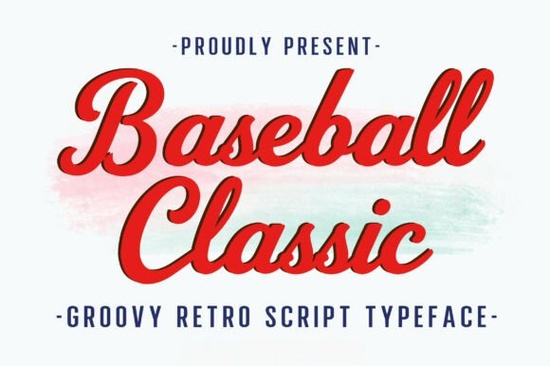
If you're looking for a bold, retro script with a clear sporty attitude, Baseball Classic Font is a strong choice. This vintage-style typeface carries the energy of old ballpark signage and classic team uniforms, making it a natural fit for logos, t-shirts, and any project that needs a nostalgic punch. It includes uppercase and lowercase letters, numbers, and punctuation, so you can use it for everything from a full brand identity to a short quote on a poster.
What makes Baseball Classic Font different from other script fonts?
Many script fonts aim for elegance or modern handwriting styles, but Baseball Classic leans into a rough, confident, and slightly weathered look. The strokes are thick and consistent, giving it high legibility even at smaller sizes. The vintage sporty feel isn't just about the name the letterforms have a hand-drawn character that recalls screen-printed numbers and lettering on leather baseballs. This makes it particularly useful for projects that need an authentic, old-school American aesthetic.
For designers working on sports merchandise or retro branding, this font can anchor a design without extra effects. It works well as a display font for headlines, but it's also readable enough for short body text when you want a cohesive vintage theme.
Who should use this font?
If you run a small print-on-demand shop selling custom apparel, or if you design logos for local sports teams, cafes, or barbershops, Baseball Classic Font should be on your list. It's also great for creative hobbyists who make posters for charity events, tournaments, or themed parties. The included punctuation and numbers mean you can create complete phrases and dates without switching to another typeface.
For crafters who make custom merchandise like mugs, hats, or tote bags, this font's bold weight ensures it stands out on fabric and curved surfaces. Small business owners who want a consistent vintage brand voice across packaging, flyers, and social media graphics will find it easy to work with.
How can you pair Baseball Classic Font with other styles?
Because it's a bold script, it pairs naturally with clean sans-serif fonts for a modern vintage contrast. For a more cohesive retro look, try combining it with a rough serif or a distressed slab. If you prefer a more elegant handwritten feel, you might look at a font like Stylish Handwriting Font for secondary text like taglines or product descriptions. For a handmade, textured vibe, a font such as Handmade Font can add an organic layer to your projects.
Where does Baseball Classic Font work best?
Logos for baseball teams, vintage-inspired apparel brands, and retro diner or bar signage are the most obvious uses. But don't limit yourself this font also shines on:
- Posters for baseball tournaments, charity games, or sports camps
- T-shirt designs with player names and numbers
- Quote graphics for social media (especially motivational or nostalgic quotes)
- Merchandise like hats, hoodies, and drinkware
- Branding for old-fashioned soda, candy, or snack labels
Practical tips for using this font in your designs
- Test readability at small sizes. While the font is bold, the script style can lose legibility below 14pt, so use it mainly for headlines or short phrases.
- Pair with a simple background. Because it has a weathered, textured look, a clean solid color or light gradient works best. Avoid busy patterns that compete with the letterforms.
- Use uppercase for strong impact. The uppercase letters carry the vintage sports vibe especially well. Try all-caps for team names or key words.
- Add a subtle shadow or outline to mimic classic uniform lettering if your software supports layer effects.
- Combine with a complementary script for variation. For taglines, a more casual script like this handmade font option can provide contrast without breaking the theme.